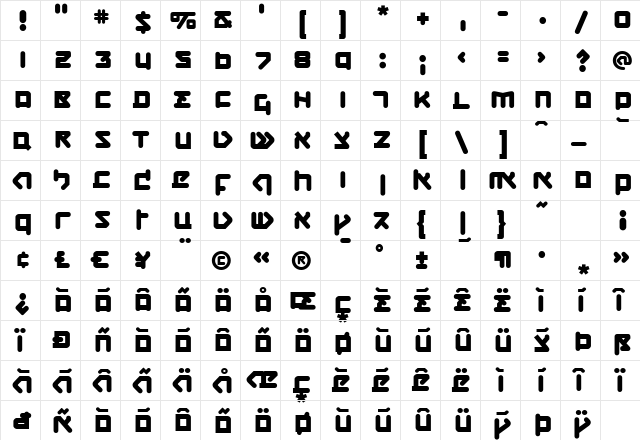
CQN-Molecular-Thermo Bold
Design Context for CQN-Molecular-Thermo Typeface
CQN-Molecular-Thermo is a composed and adaptable typeface that performs quietly and consistently across a wide range of design contexts. The heavy weight commands attention and anchors typographic hierarchies.